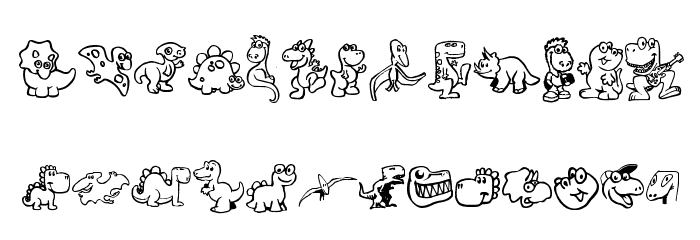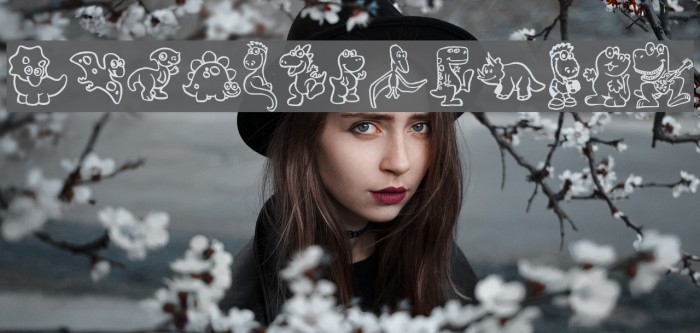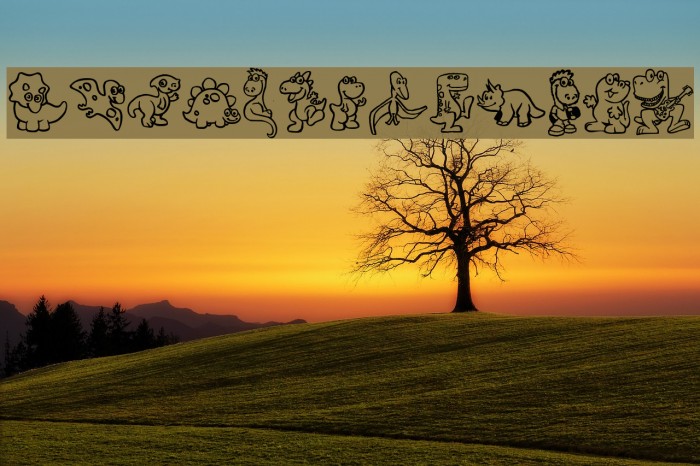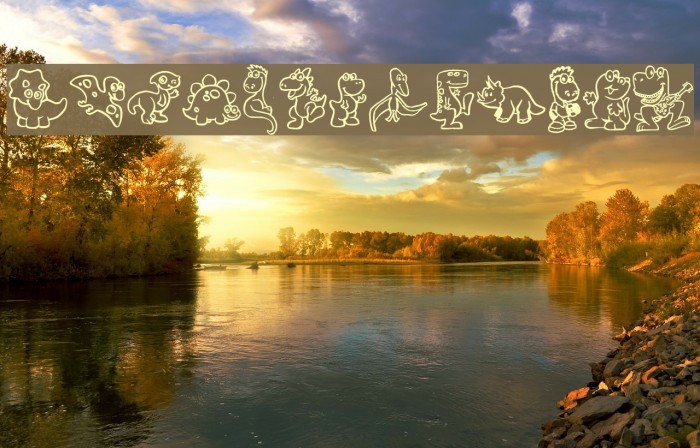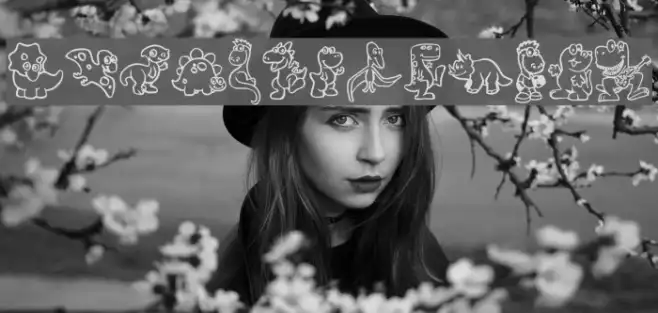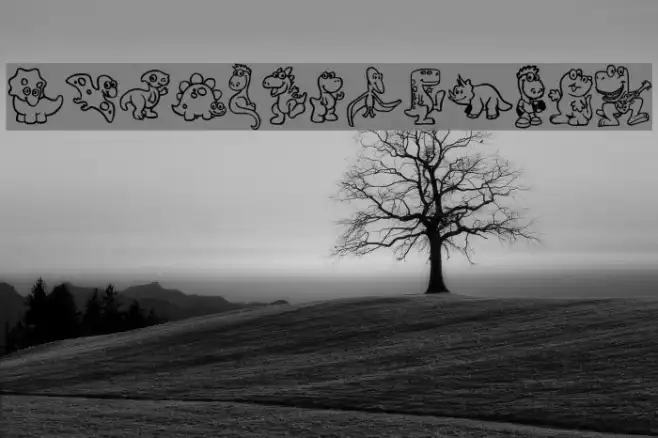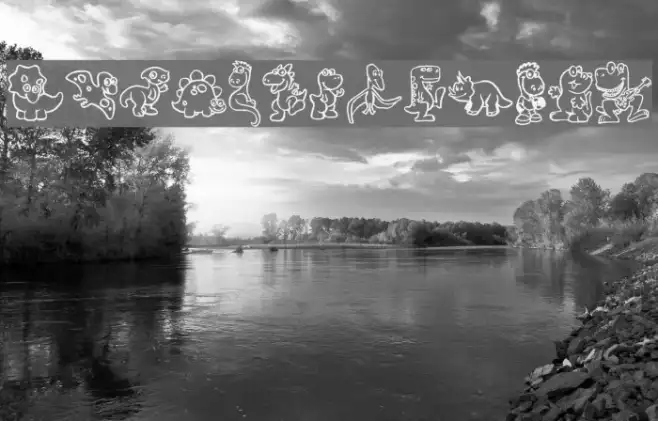
Dinoz Font
This font features a playful and whimsical collection of dinosaur-themed characters. Each letter is represented by a unique cartoon dinosaur, showcasing a variety of expressions and poses. The style is highly decorative, with bold outlines and intricate details that bring each character to life. The font is designed to capture attention and evoke a sense of fun and creativity, making it ideal for projects aimed at children or those looking to add a touch of humor and charm. The characters are well-spaced, ensuring readability while maintaining their distinct and engaging appearance.
A playful, dinosaur-themed decorative font with cartoon characters.
- Proposed Projects: Ideal for children's books, educational materials, playful branding, and themed party invitations.